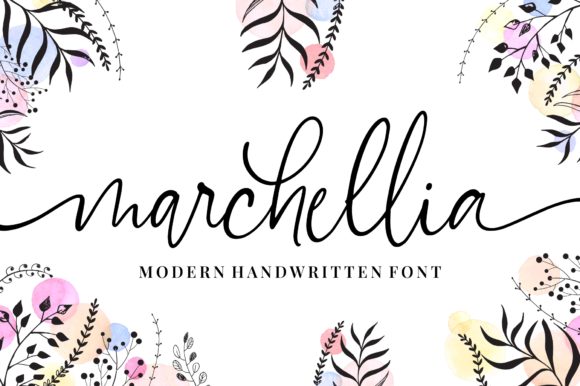
Journey into the whimsical embrace of Marchellia Font, a delicate script that dances upon your eyes, capturing hearts with its tender beauty. This enchanting font flows like a gentle stream, evoking a symphony of emotions that will leave you breathless.
Marchellia, crafted with the utmost care by goodjavastudio, is a testament to the magic that lies within the written word. Its hand-lettered elegance transports you back to a time of timeless charm, where every letter is a work of art, infused with a touch of sophistication and boundless creativity.
With Marchellia Font, you hold the key to unlock a world of artistic expression. From enchanting wedding invitations that feel like whispers of love to breathtaking stationary art that speaks to the soul, let your imagination run wild and create pieces that will be cherished for a lifetime.
Whether you're a seasoned designer longing to capture that special touch or an aspiring artist seeking to ignite your inner flame, Marchellia Font is your muse. Its versatility extends beyond the boundaries of traditional calligraphy, inviting you to design captivating social media posts that will ignite engagement like never before.
Marchellia's enchanting allure knows no bounds, captivating hearts with its warmth and authenticity. Every stroke of the pen, every carefully crafted letter beckons you to explore realms of creativity that you never thought possible. Let your heart be swept away by the beauty of Marchellia Font, and let your imagination soar as you create masterpieces that will leave a lasting impression.